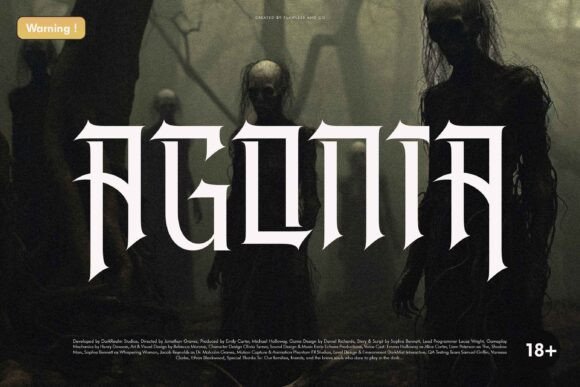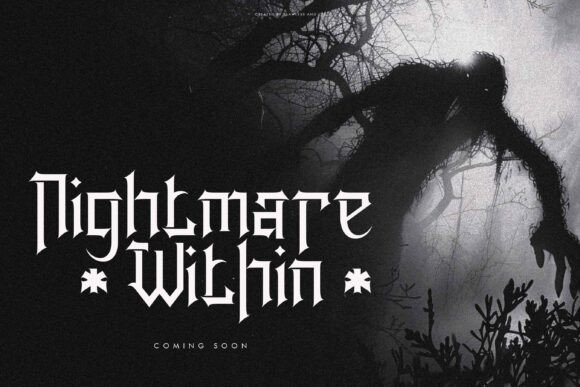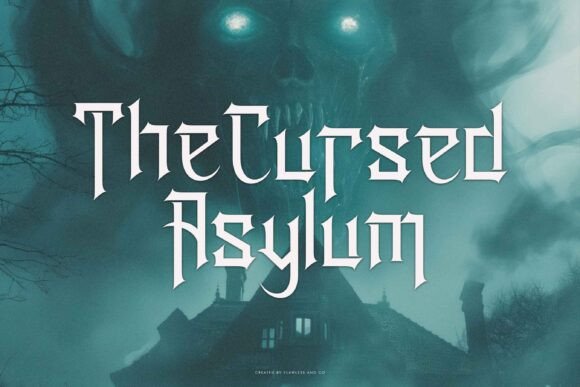
Introduction to Rexar Font
Have you ever found yourself scrolling through design inspiration boards, searching for the perfect font to give your next creative project that extra oomph? I know I have. And then, like a bolt of lightning, you stumble upon a font that makes your heart skip a beat – a font that screams “drama” and “mystery” in a single glance.
For me, that font is Rexar Font. Its gothic display typeface is a masterclass in creating a sense of foreboding and unease, making it the perfect choice for horror movie posters, book covers, metal band logos, and dark fantasy projects. With its sharp letterforms, pointed angles, and intricate gothic details, Rexar Font delivers a strong and menacing visual presence that elevates any design to new heights.
Key Features of Rexar Font
- Unique, modern design that adds a touch of sophistication to any creative project, making it an ideal design resource.
Honest Review: Rexar Font
As a designer, I’m always on the lookout for high-quality fonts that can elevate my creative projects. The Rexar Font caught my eye with its sleek and modern design. I decided to give it a try and see how it performs.
- ✨ High-quality design that’s perfect for modern creative projects
- ⚠️ Limited character set, which might not be suitable for longer text-based projects
- ⚠️ Some users might find the font too modern and not versatile enough
Rexar Font
Tips for Getting the Most Out of Rexar Font
For a high-quality design, use Rexar Font with a transparent background to create a clean and minimalist look. You can also experiment with different font sizes and styles to add visual interest to your design.
Common Use Cases for Rexar Font
Rexar Font is a versatile design resource suitable for a wide range of creative projects, including logos, brochures, and business cards. Its high-quality design and transparent background make it an ideal choice for designers looking for a unique and eye-catching font.